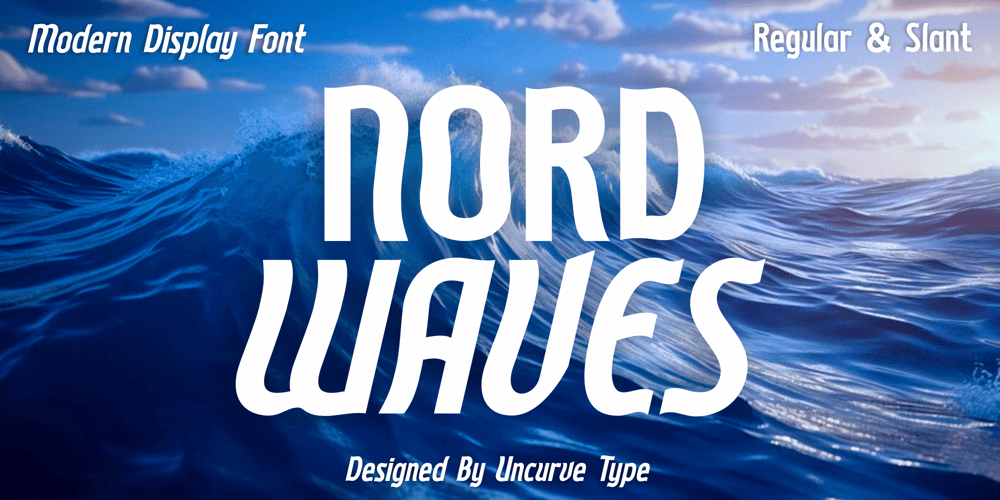
Nordwaves Font Family was designed by Ferry Septian and published by Uncurve. Nordwaves contains 2 styles and family package options. Introducing “Nord Waves,” a modern display font with a unique wavy aesthetic that’s stylish yet highly readable. With its two versatile styles—Regular and Slant—Nord Waves offers the perfect combination for crafting eye-catching and dynamic designs. Its sleek, sporty vibe makes it an excellent choice for projects that demand a bold and modern touch.Nord Waves is ideal for a wide range of design applications, including authentic logos, sporty layouts, flyer designs, posters, branding, magazines, book covers, race posters, apparel designs, and titles. Its modern aesthetic also works seamlessly for brochures, labels, product packaging, websites, social media posts, sports events, headlines, headers, and more. Whether you’re designing modern t-shirts, automotive branding, or formal materials, Nord Waves ensures your designs stand out with style and sophistication.